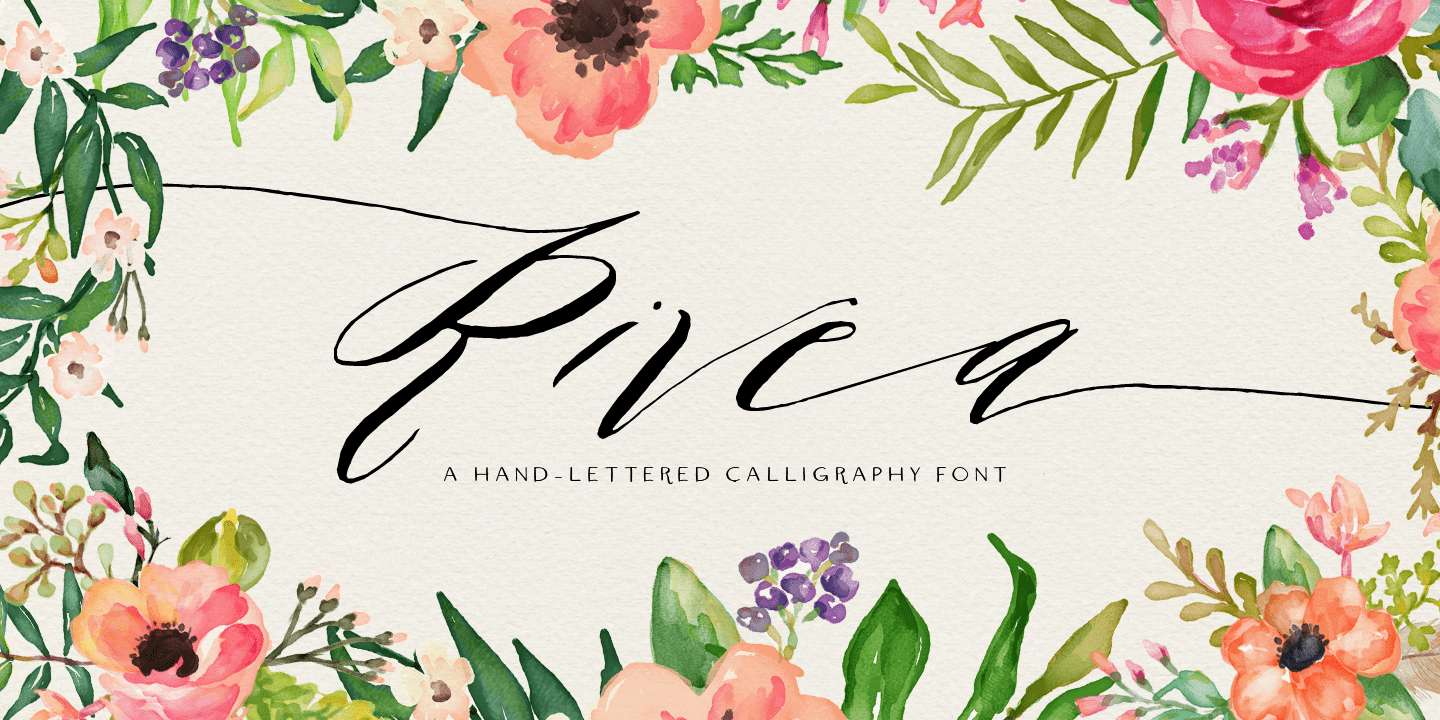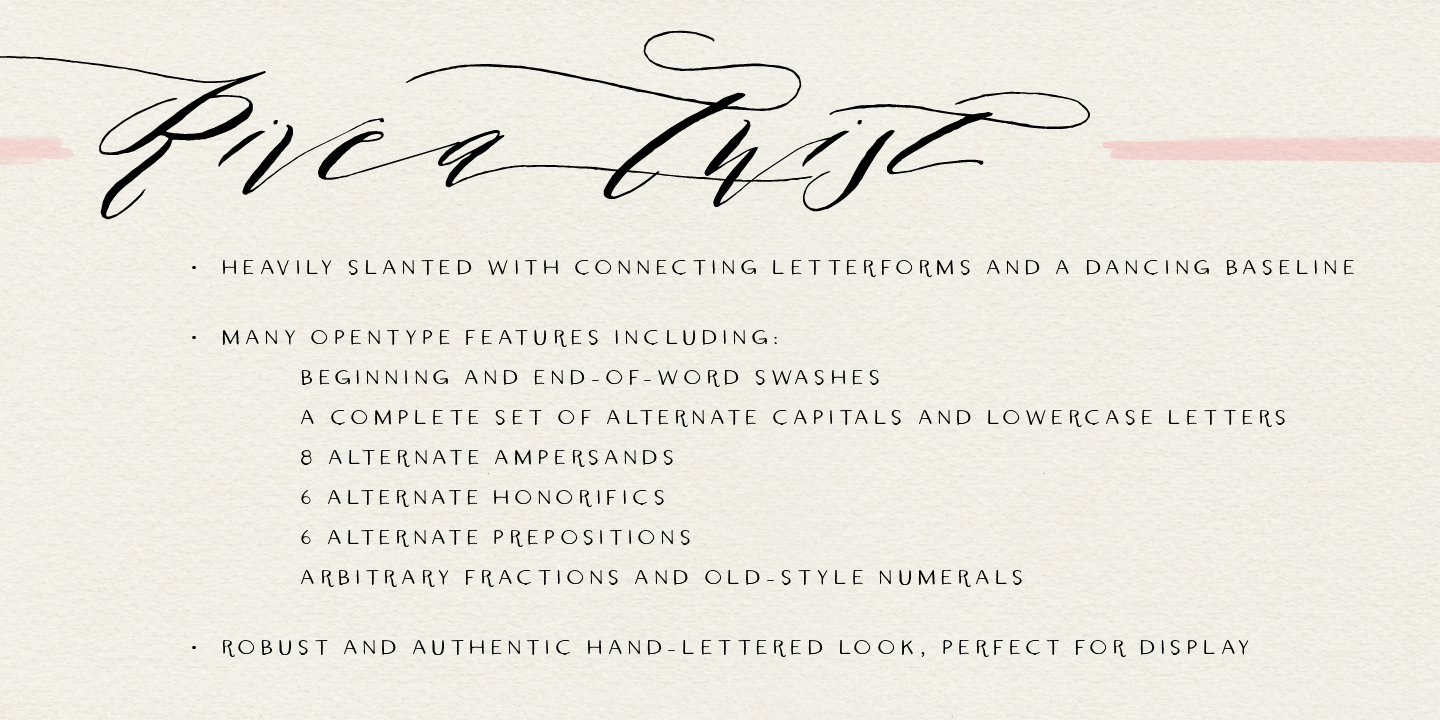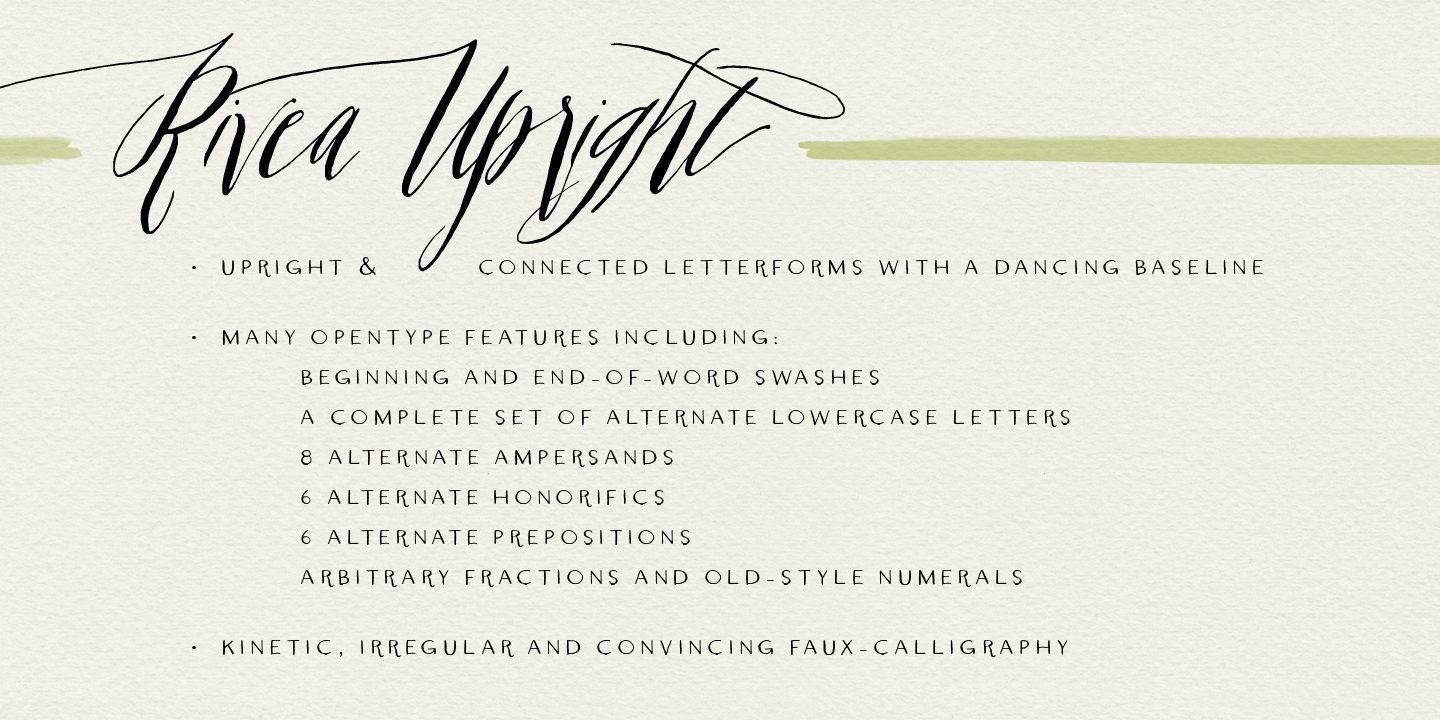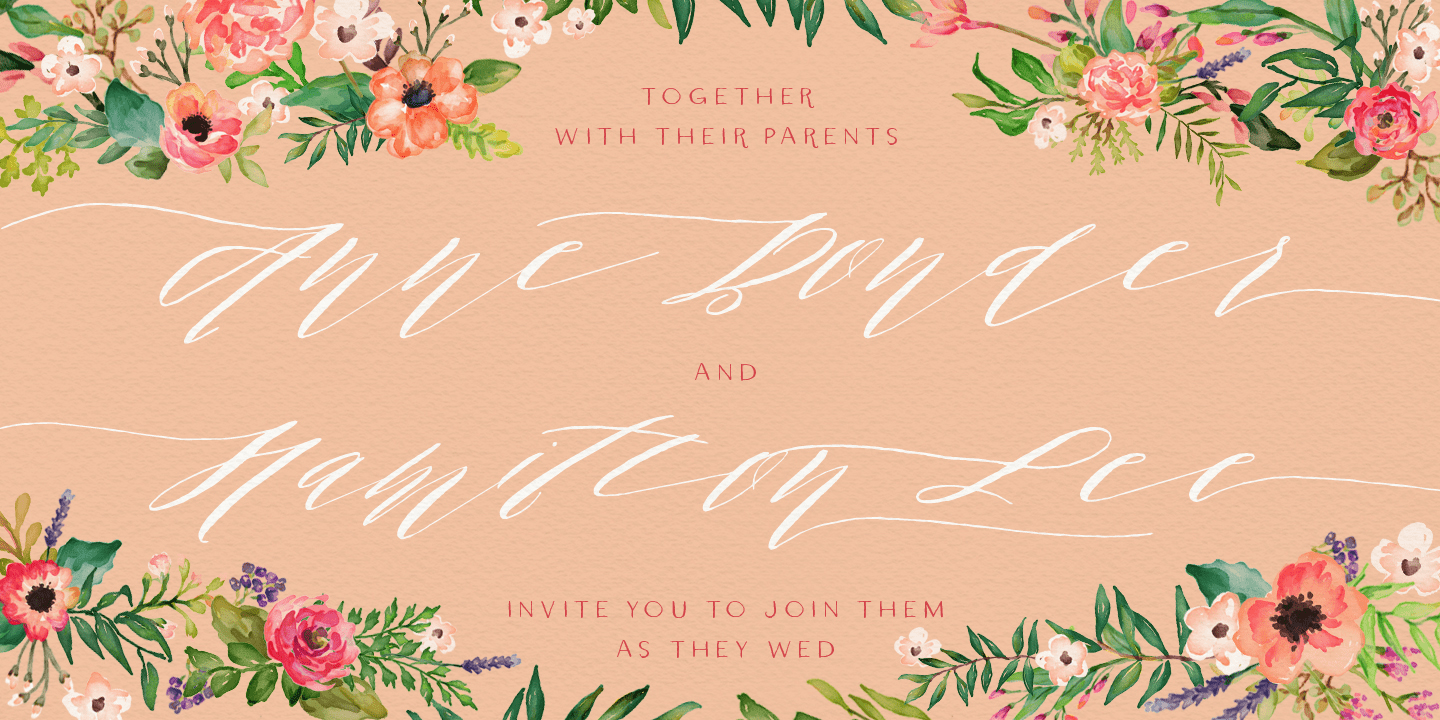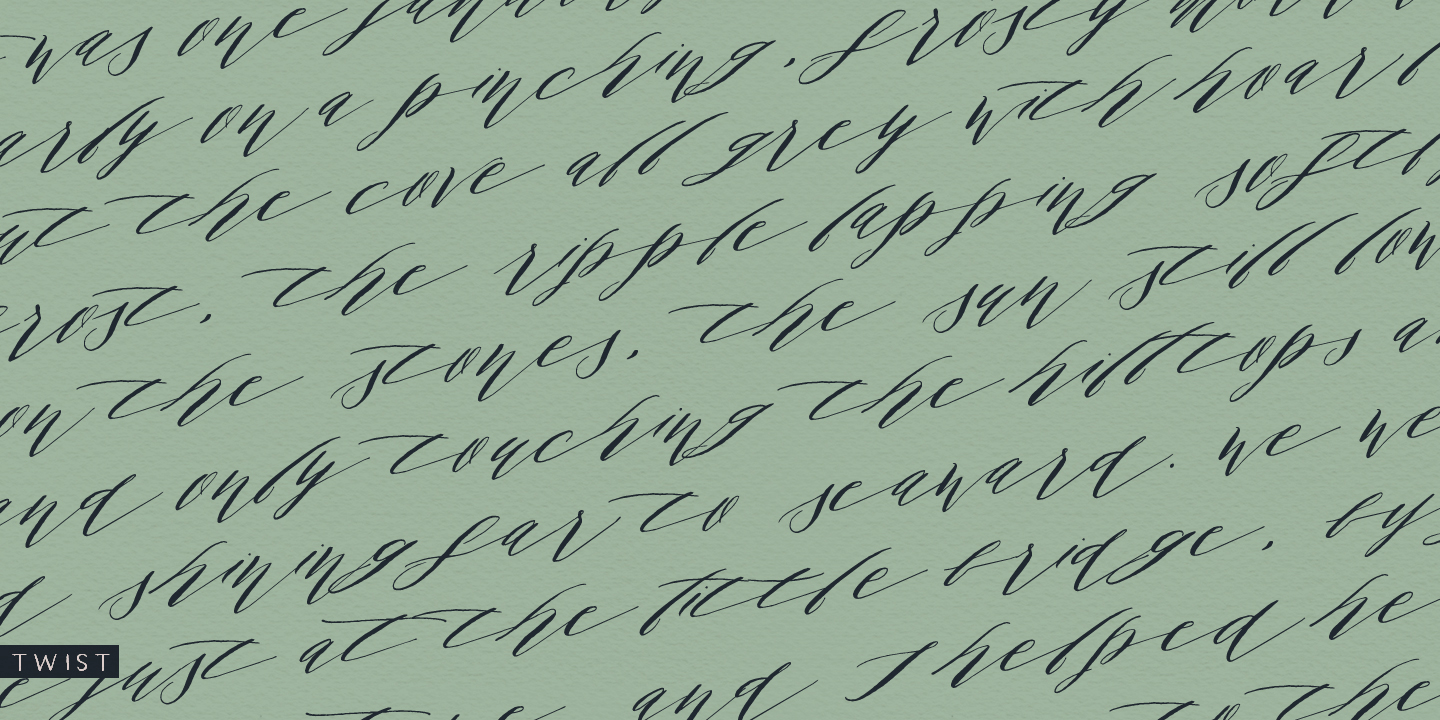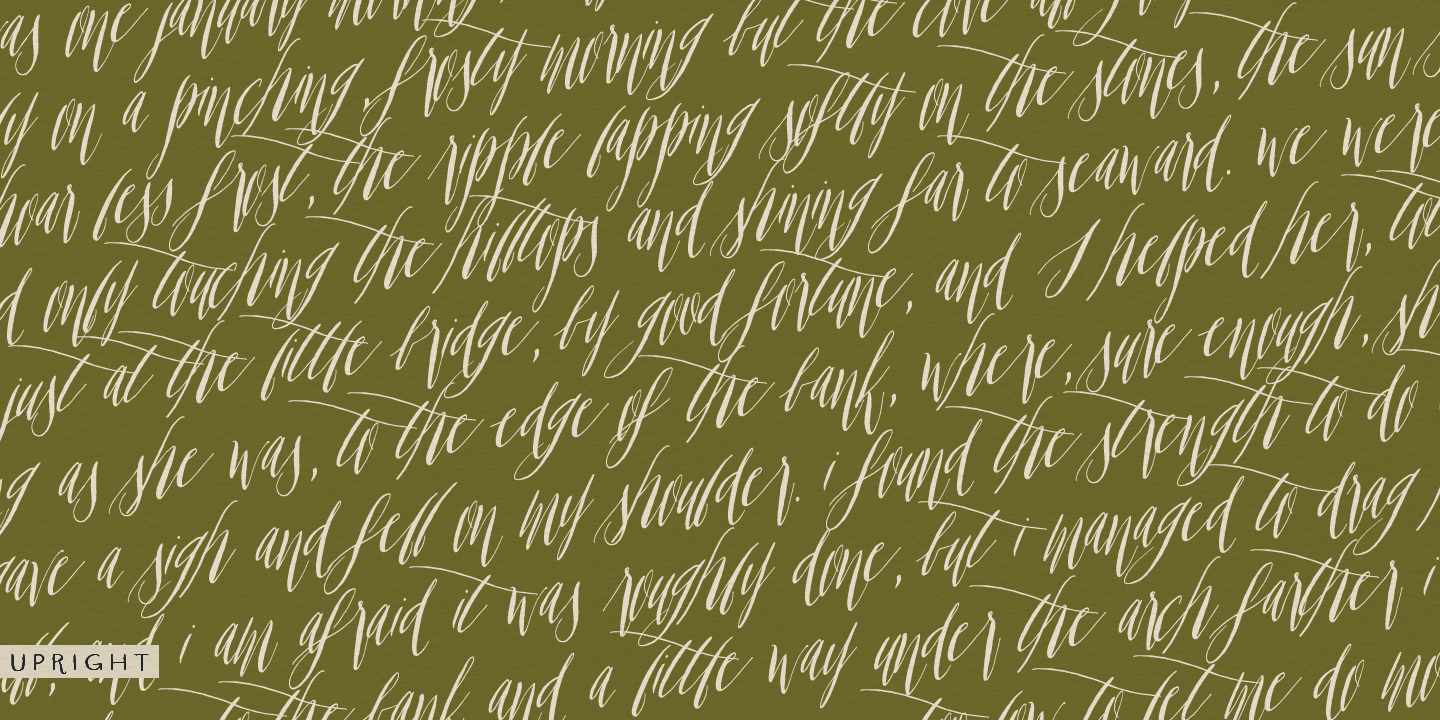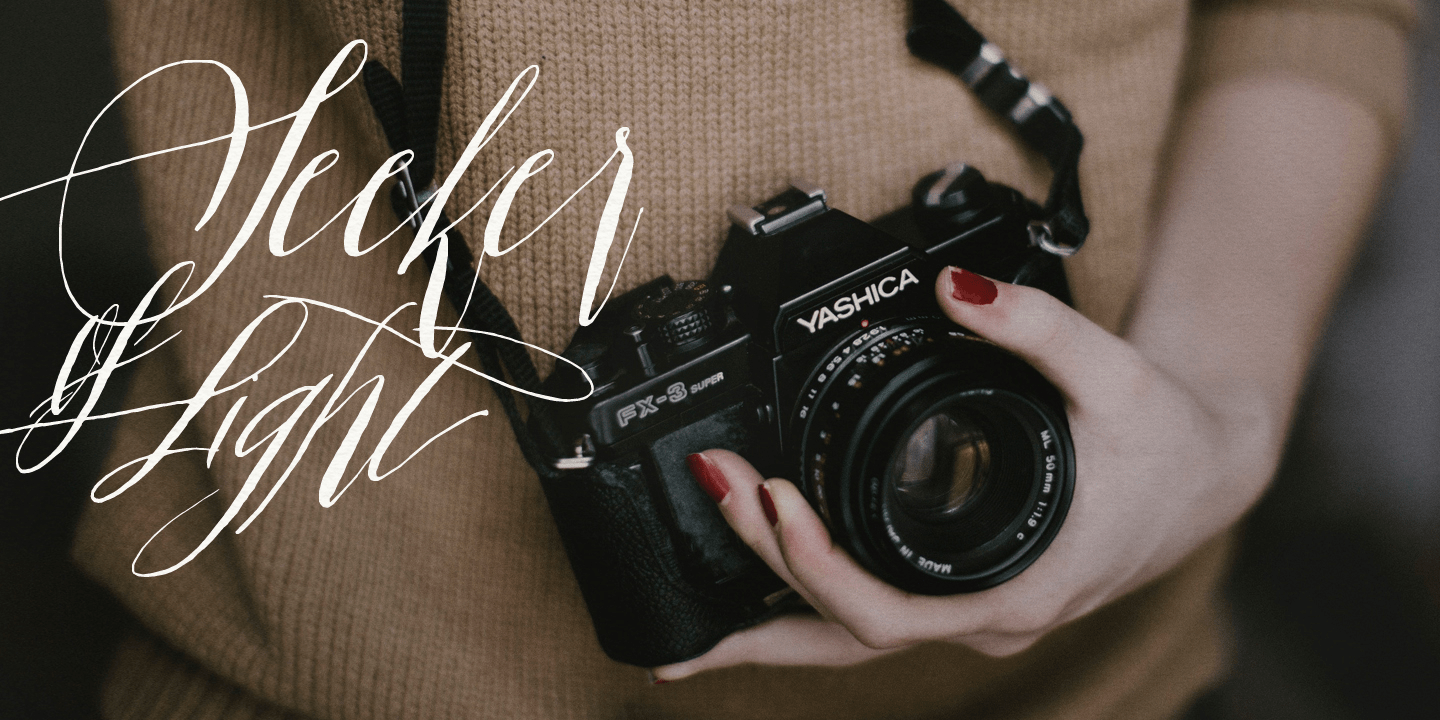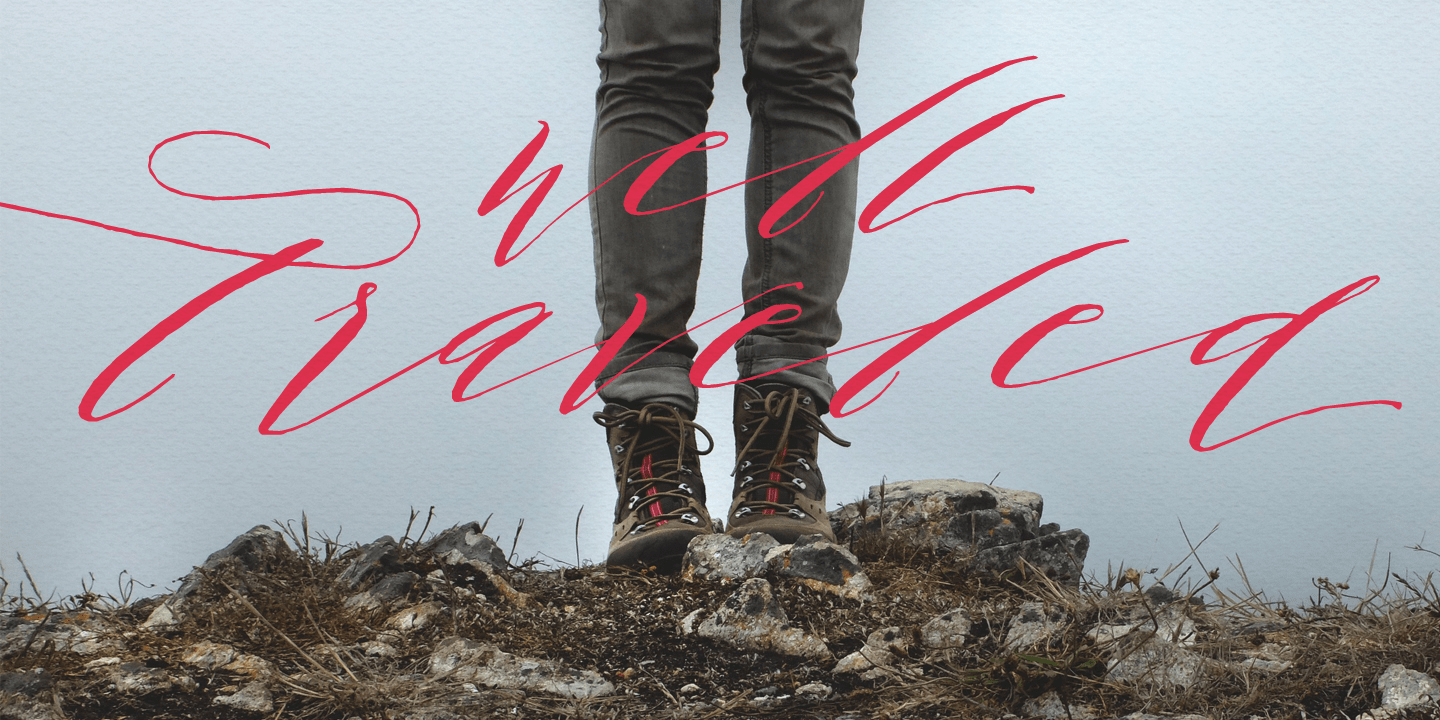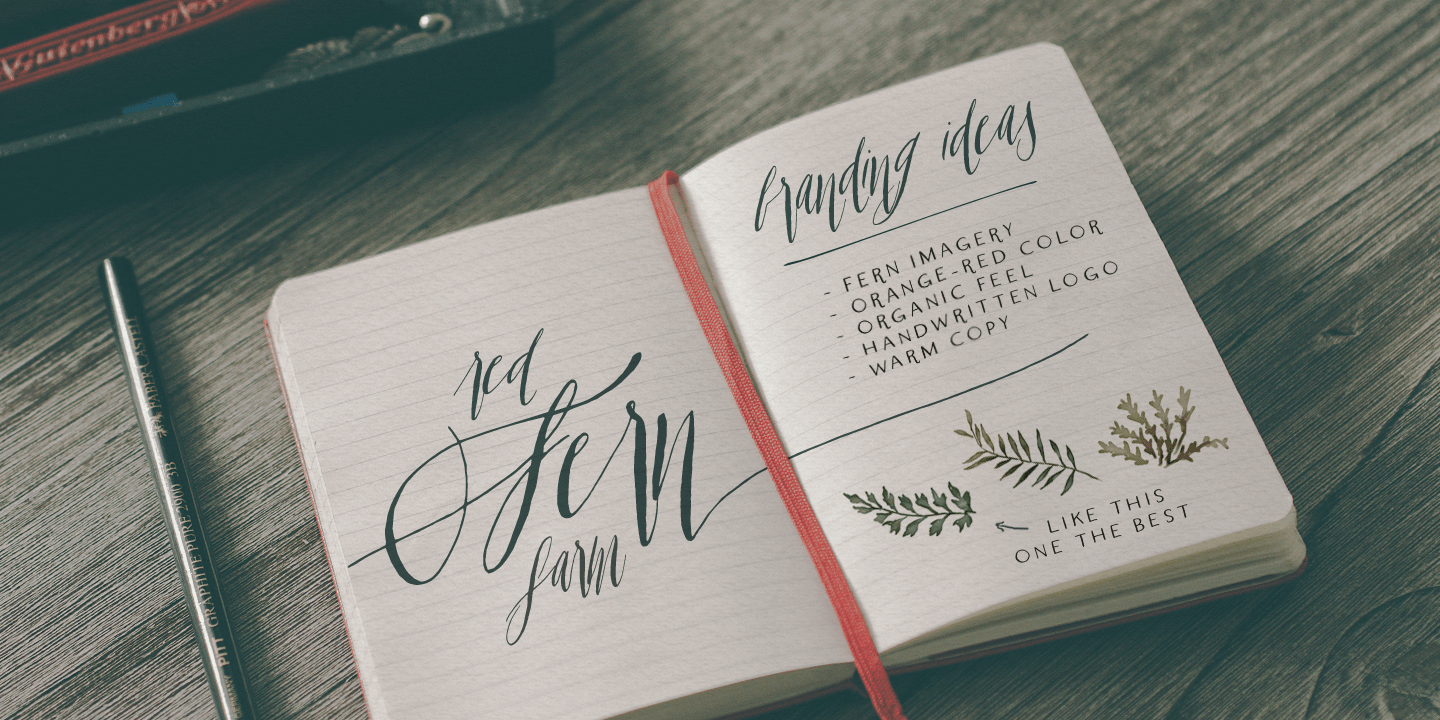
Rivea
Font Family by Magpie Paper Works
Rivea is two-font, hand-lettered script family designed to mimic real calligraphy. Each font dances along a natural, variable baseline and has a distinctive slant. Long, thin upstrokes contrast with rich downstrokes in a style reminiscent of